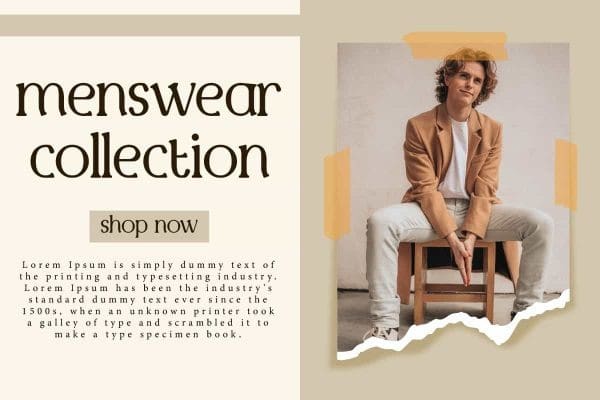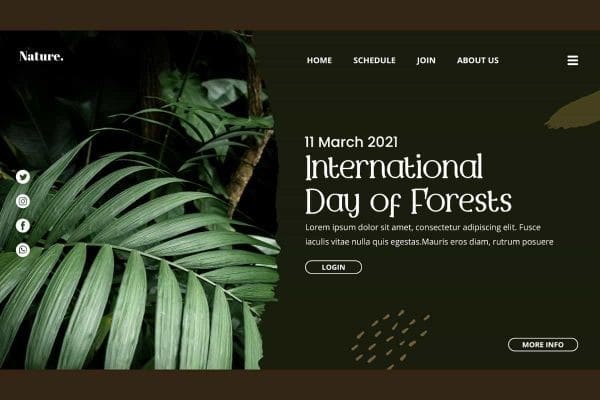
Moria Cabin Font
Moria Cabin Font is an aesthetic original fancy serif display font. This font has additional lines at each end of the letters which are unique and have their own characteristics. It will be good for any designs, such as brand image, custom design, flyer, invitation, label, marketing material, menu, poster, product packaging, quote, signage, stationery, website page, and more!
Moria Cabin Font includes a full set of Uppercase and Lowercase Letters, Numerals, and large range of Punctuation. This stylish font will be suitable for various industries, such as accessories, advertising, beauty product, cafe, event or festival, fashion, furniture, marketing, movie, printing, publishing, real estate, restaurant, etc.